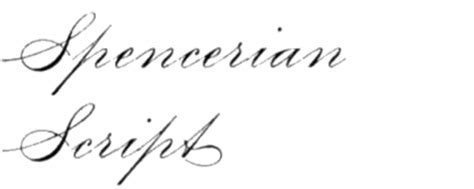
Spencerian Script Font. Web spencerian script is a script style based on copperplate script that was used in the united states from approximately 1850 to 1925, and was considered the american de facto standard writing style for business. Web ballet is a reinterpretation of the classic spencerian script style with a few whimsical twists in two different versions:
Web ballet is a reinterpretation of the classic spencerian script style with a few whimsical twists in two different versions: Click to find the best 8 free fonts in the spencerian style. Web spencerian script is a script style based on copperplate script that was used in the united states from approximately 1850 to 1925, and was considered the american de facto standard writing style for business. Web ballet is a reinterpretation of the classic spencerian script style with a few whimsical twists in two different versions: ️ this font has been downloaded 10,000+ times. Every font is free to download! Web looking for spencerian fonts? Ballet aligned and crooked, both with latin gf plus character set. Web download and install the spencerian script sw font for free from ffonts.net.